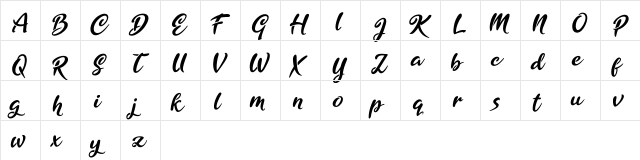
Golden Ranger Golden Ranger
Design Context for Golden Ranger Typeface
Golden Ranger is a composed and adaptable typeface that performs quietly and consistently across a wide range of design contexts.
Pro Tip: Use Golden Ranger in both headline and body roles to test its range before committing to a single application.